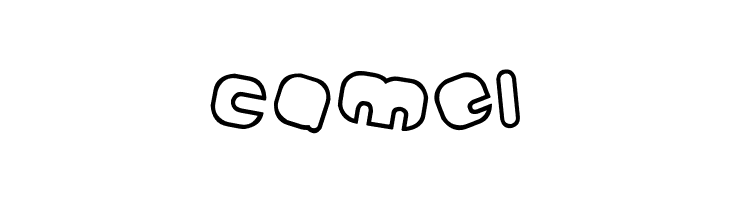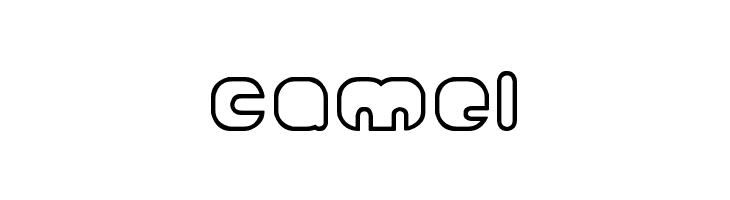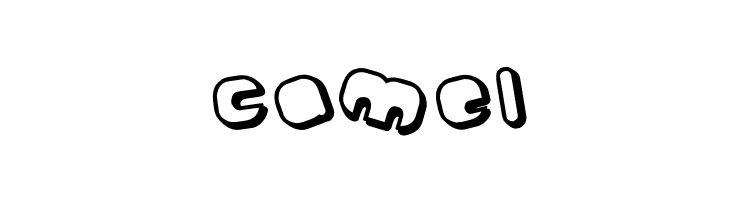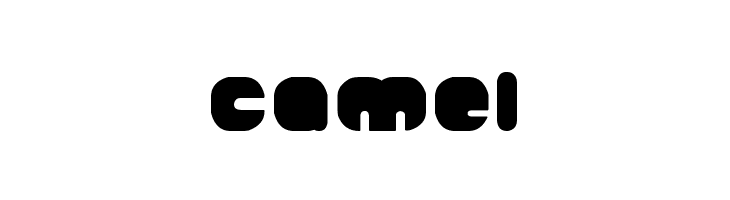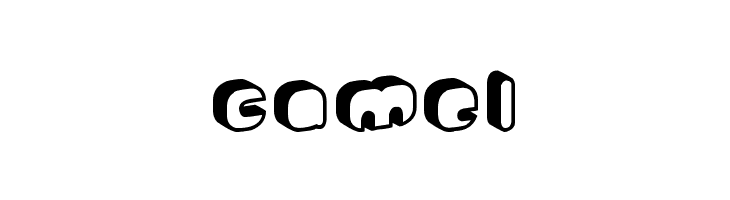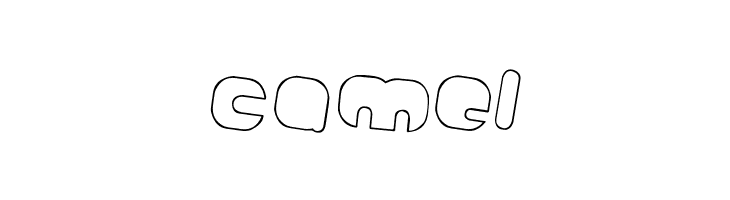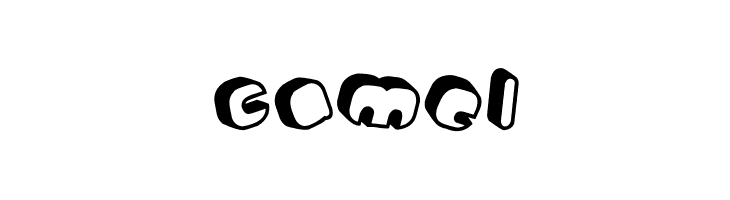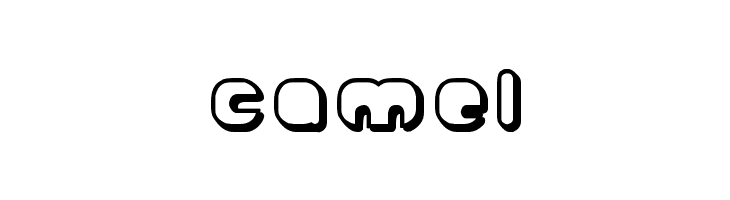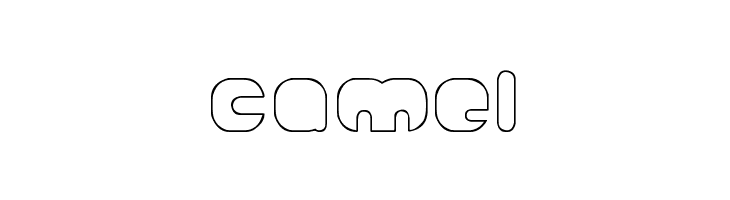
A modern, playful font with rounded edges and hollow interiors.
A bold, rounded, and playful font with a modern style.
A bold, playful font with thick, rounded characters and a whimsical style.
A modern, rounded geometric font with a hollow interior and consistent line thickness.
A playful, hand-drawn font with rounded, bubble-like characters and a whimsical style.
A playful, hand-drawn font with bold, rounded outlines and a whimsical style.
A playful, bold font with a 3D effect and rounded letters.
A playful, hand-drawn font with bold outlines and a whimsical, cartoonish style.
A playful, shadowed font with rounded, bold characters and a modern, three-dimensional look.
A playful, bold font with a unique shadow effect and rounded, bubbly characters.